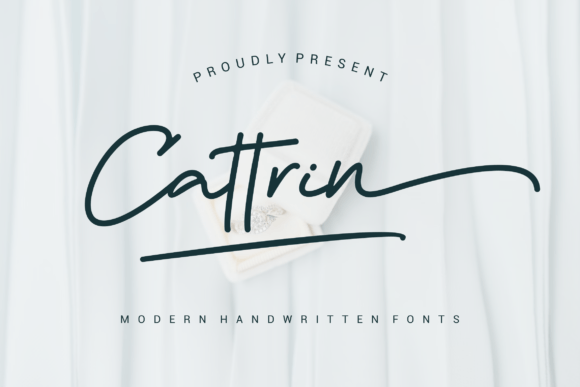
Welcome to the realm of Cattrin Font, a script font that's not just a font, it's an experience. Its flowing curves and delicate strokes will dance across your designs, leaving a trail of elegance and charm.
Dive into the world of Cattrin Font, a script font crafted with love and precision. This font family is more than just a collection of letters; it's an art form, a symphony of lines and curves that come together to create something truly special.
Unleash your creativity with Cattrin Font and watch your designs come alive. Its versatility knows no bounds, making it the perfect choice for everything from logos and branding to quotes and invitations. Each letter in this font family is a work of art, with unique and beautiful touches that will make your designs stand out from the crowd.
Imagine your logo, adorned with the graceful lines of Cattrin Font, commanding attention and leaving a lasting impression. Picture your branding materials, infused with the charm and elegance of this font, creating a cohesive and unforgettable identity.
With Cattrin Font, your quotes will take on a new life, their words dancing across the page with grace and eloquence. Invitations crafted with this font will be treasured keepsakes, cherished for their beauty and timeless appeal.
Cattrin Font is more than just a font; it's an extension of your creativity, a tool that empowers you to turn your design dreams into reality. Embrace the magic of Cattrin Font and let your imagination soar.